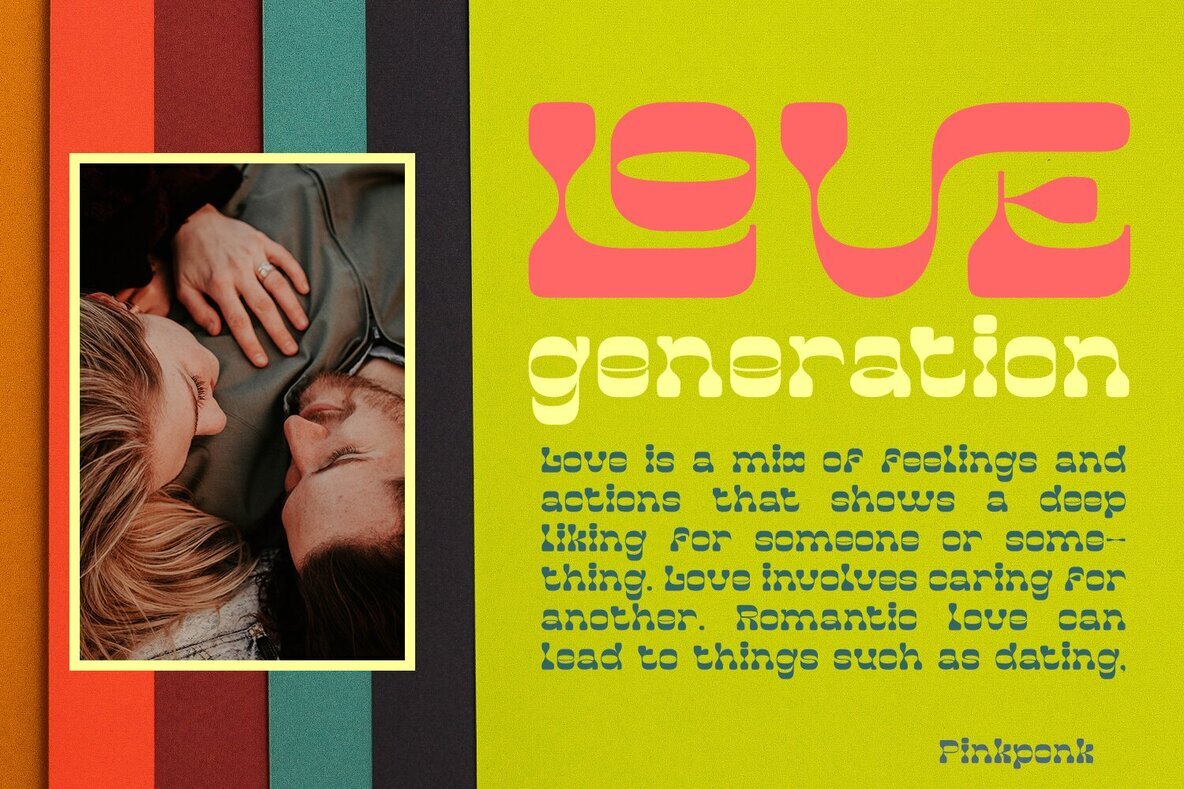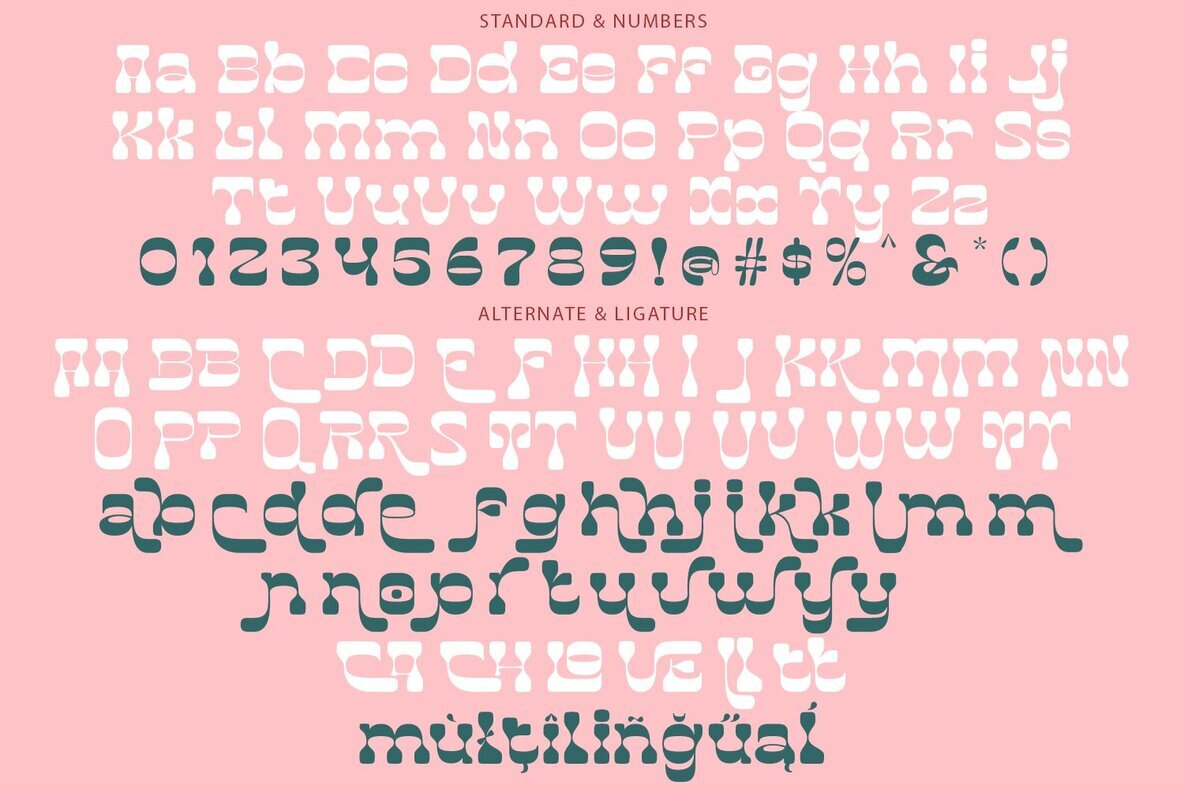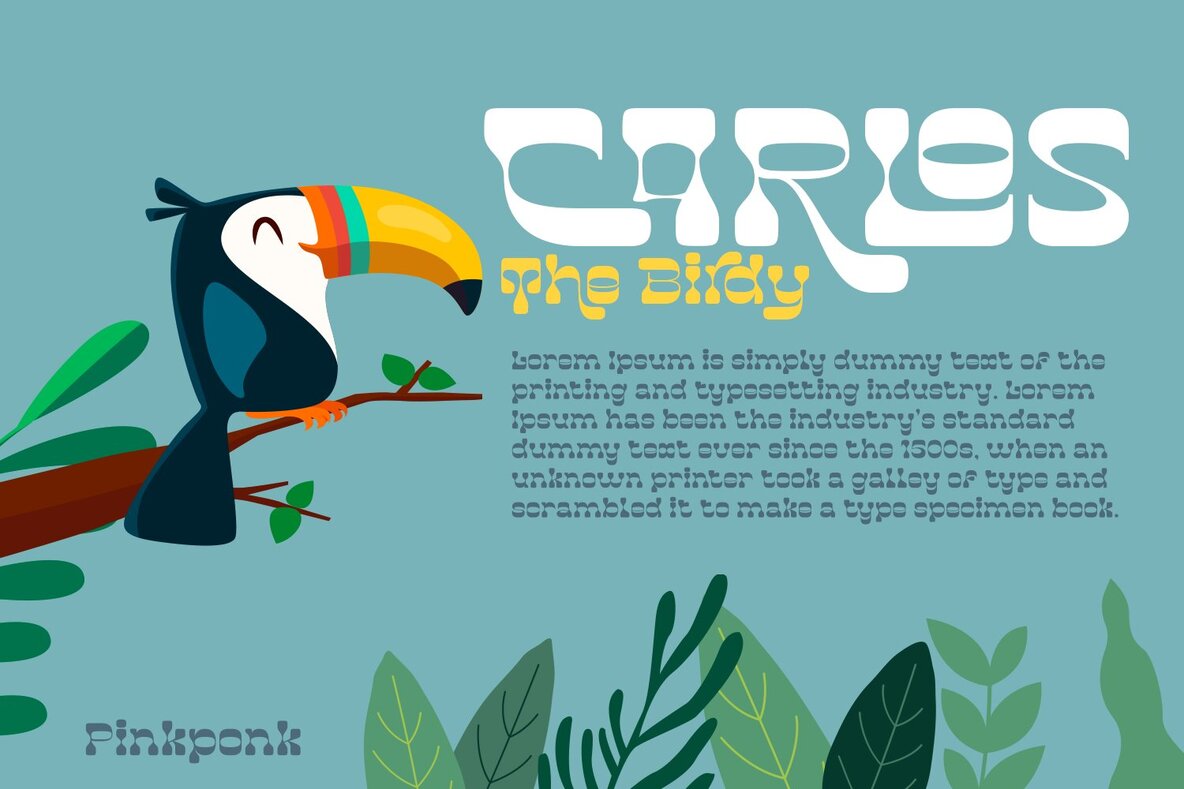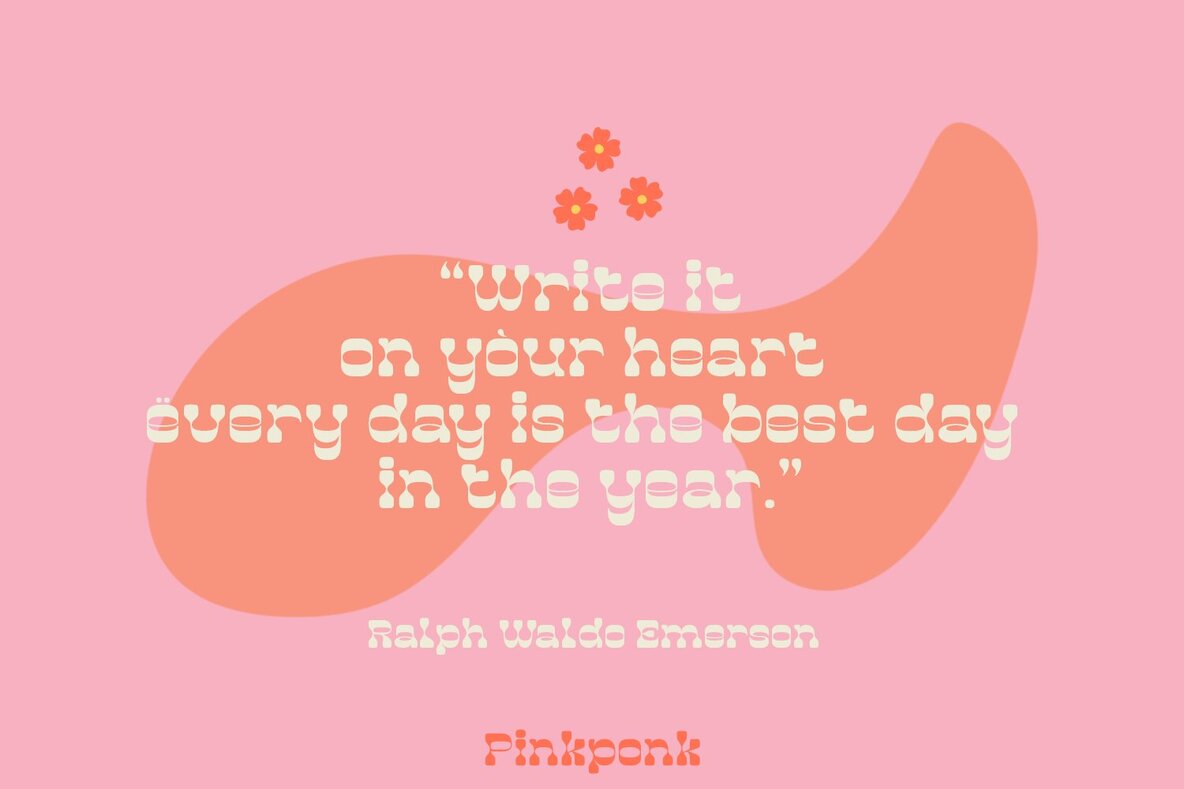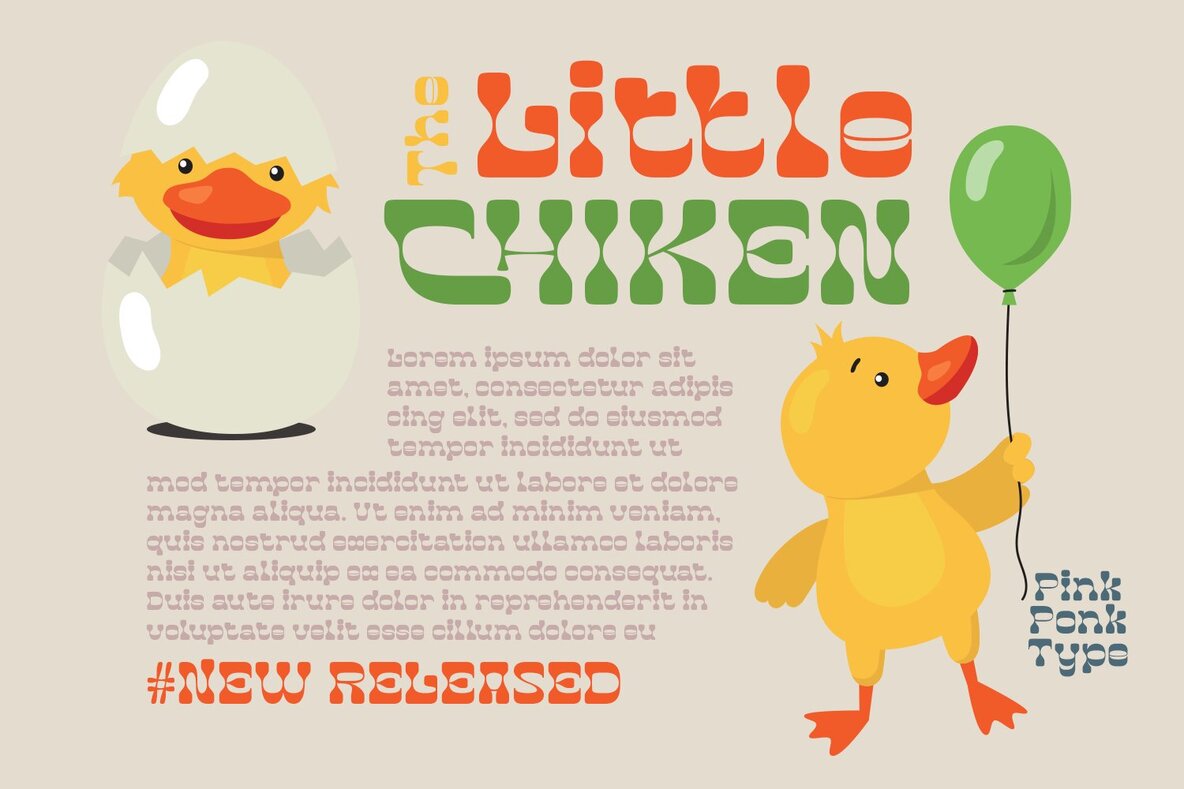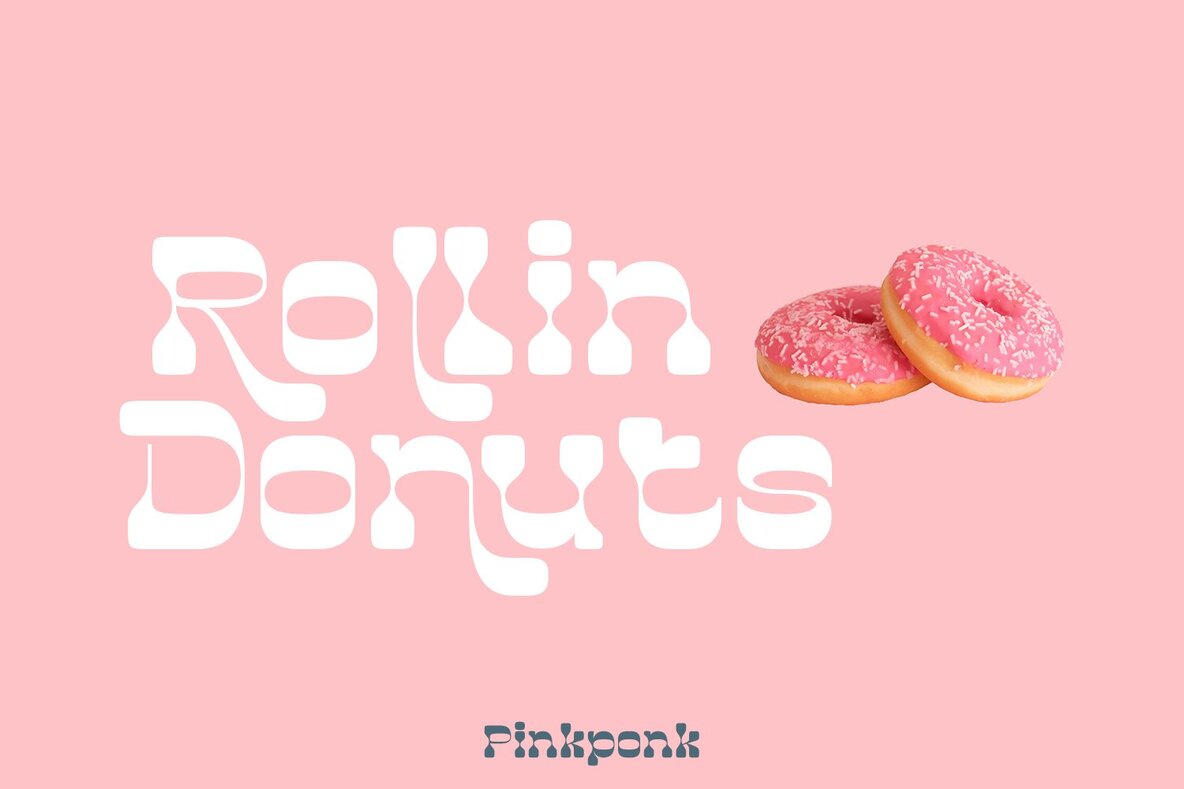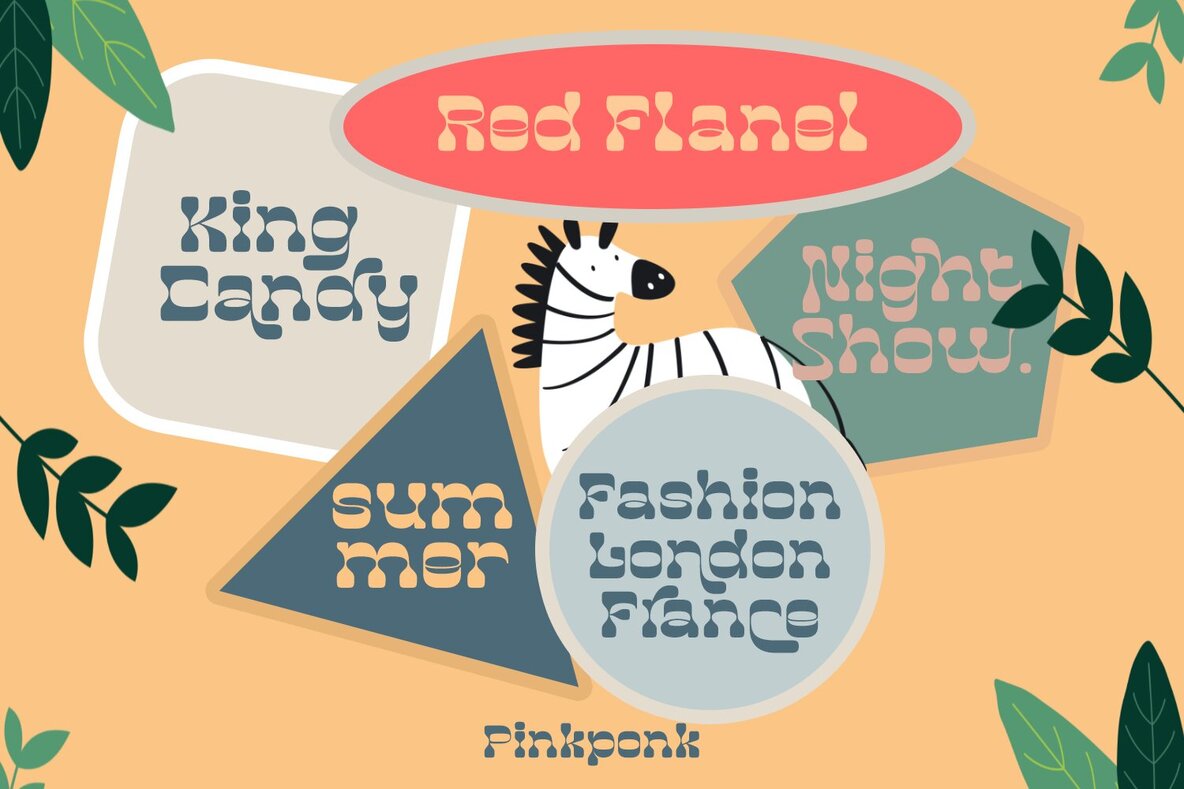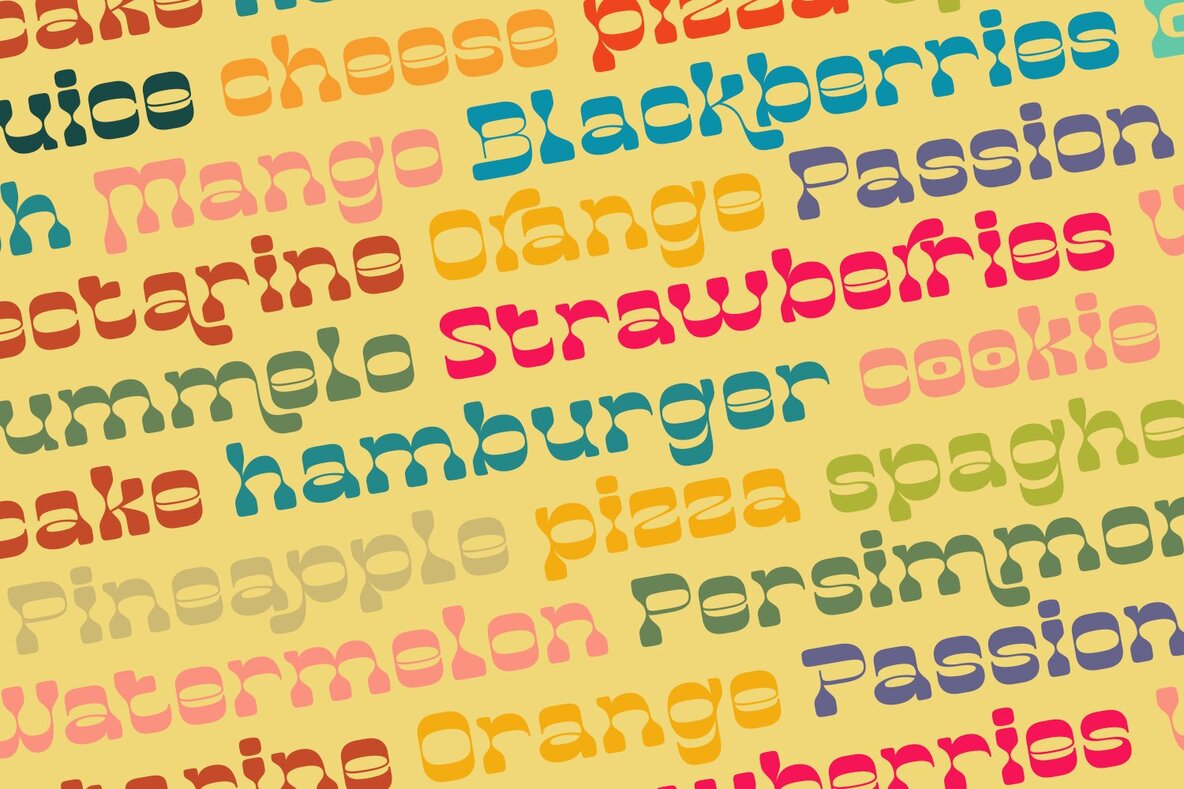
Pinkponk Font
Get ready to add some groovy vintage flair to your designs with Pinkponk Font. I'm thrilled to introduce this font that has the ability to elevate your creative ideas to new heights. With its combination of ligatures and special alternative glyphs, the possibilities for unique layouts and compositions are endless. Pinkponk infuses a touch of the 80's and 90's bespoke custom typography into logos, websites, social media quotes, wedding branding, and more.
Unleash your creativity and bring a touch of vintage charm to your next project with Pinkponk Font.